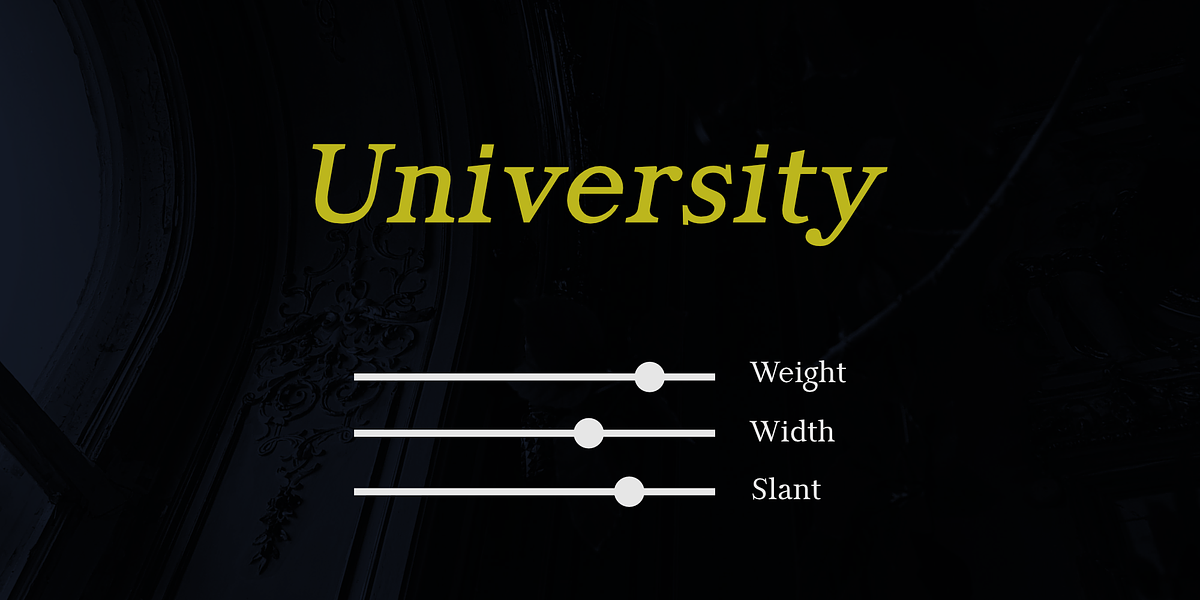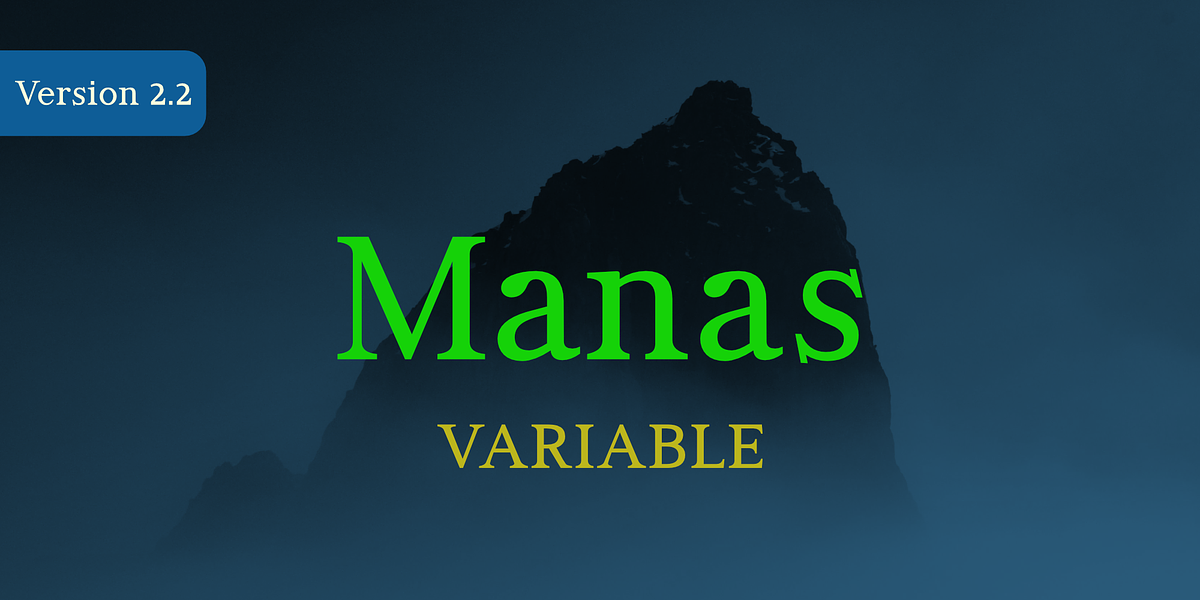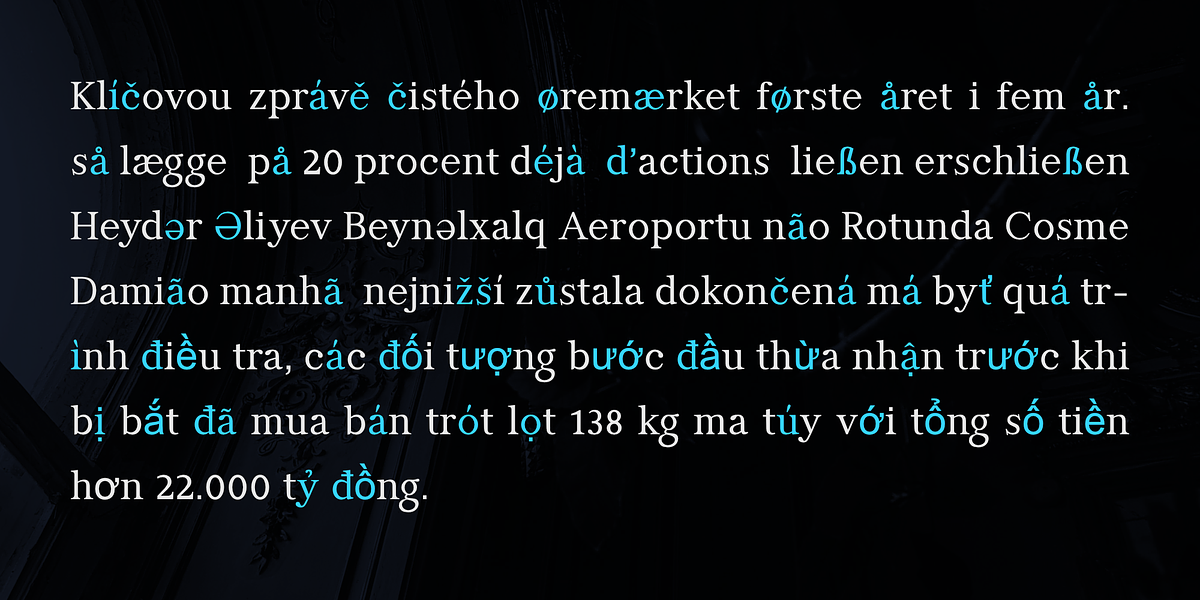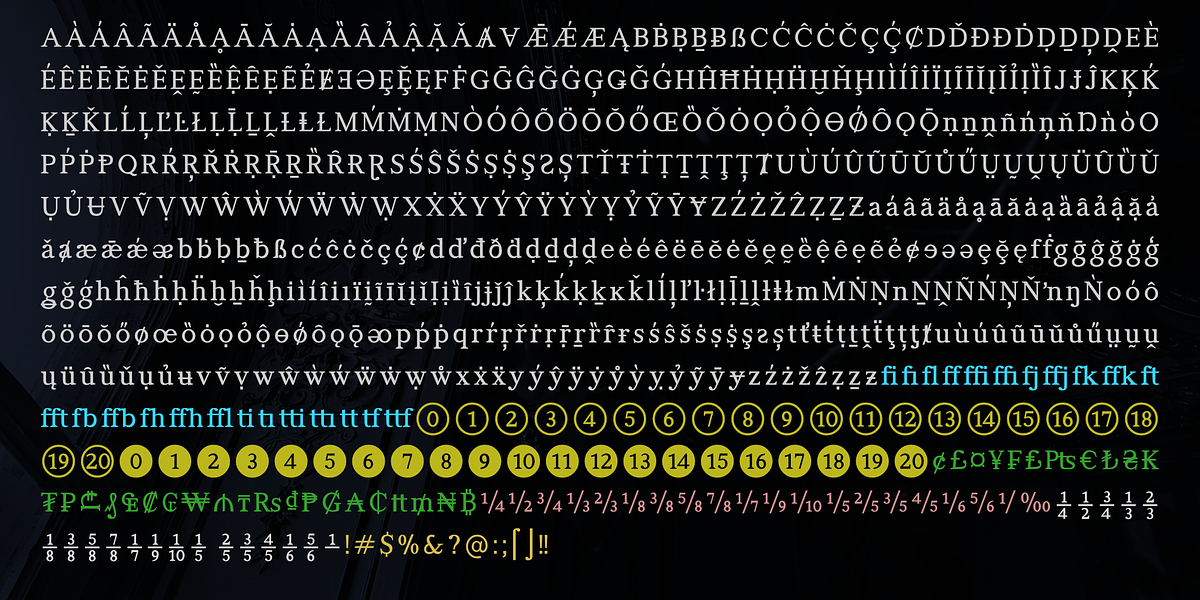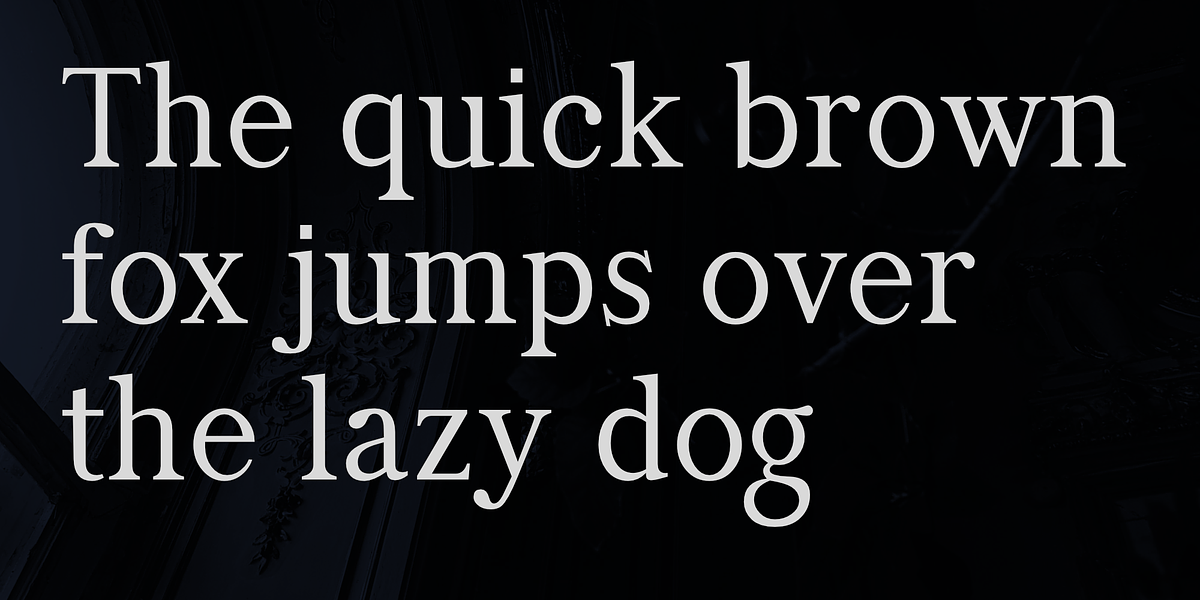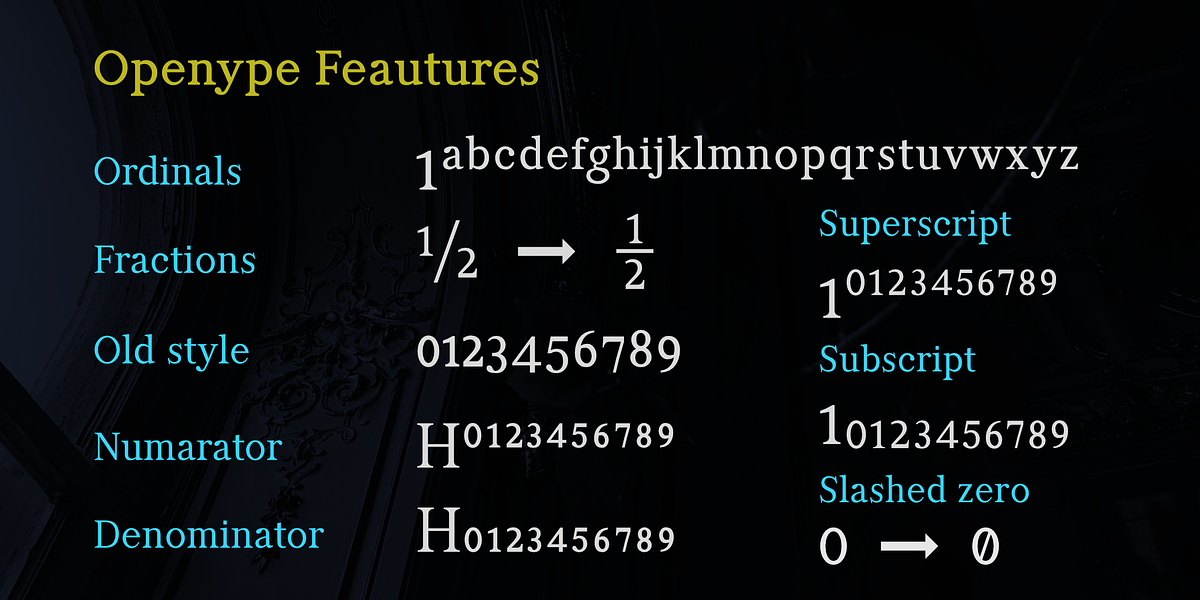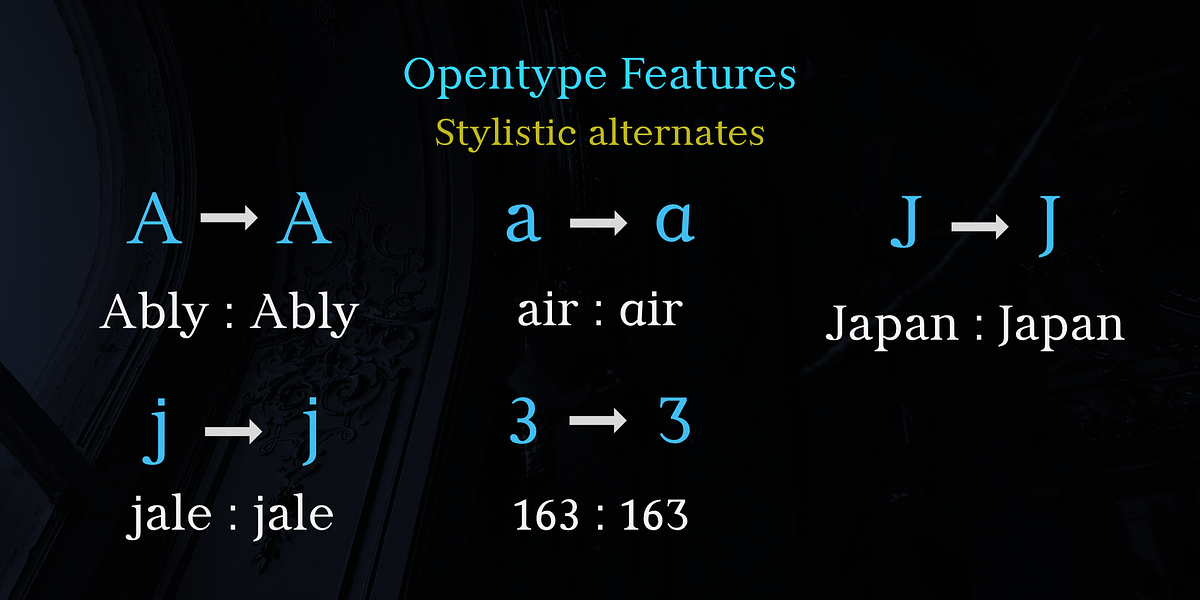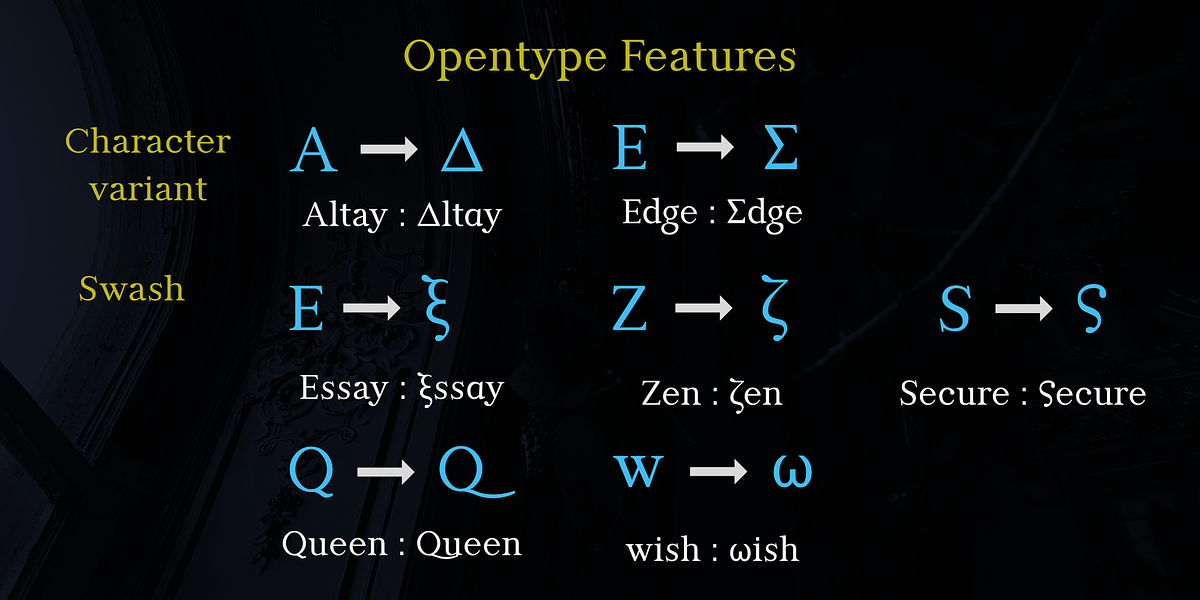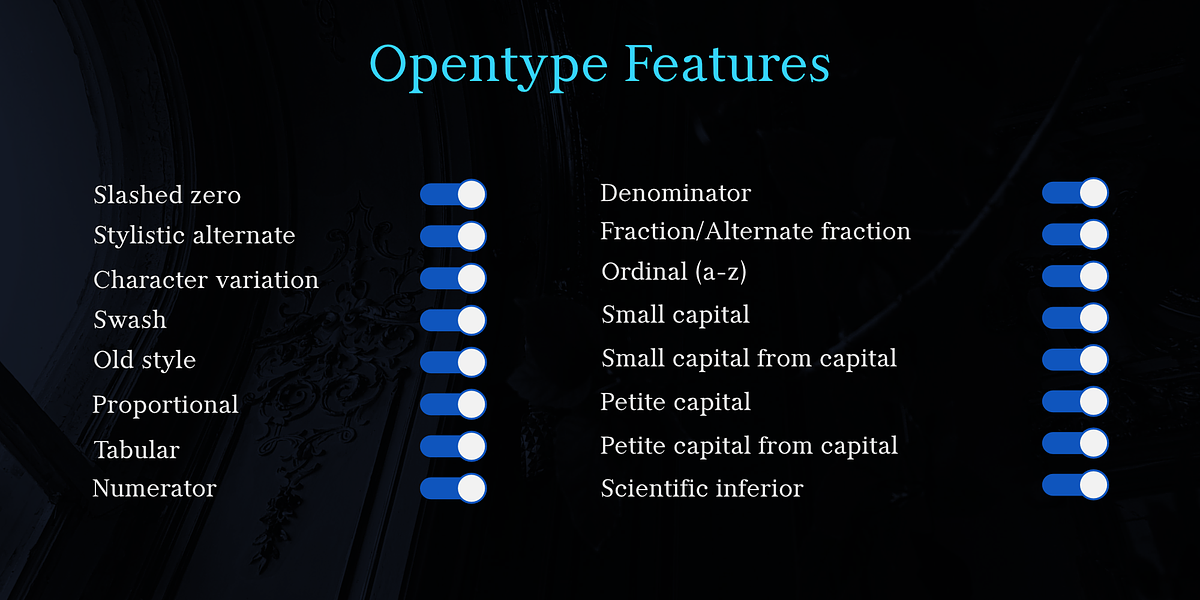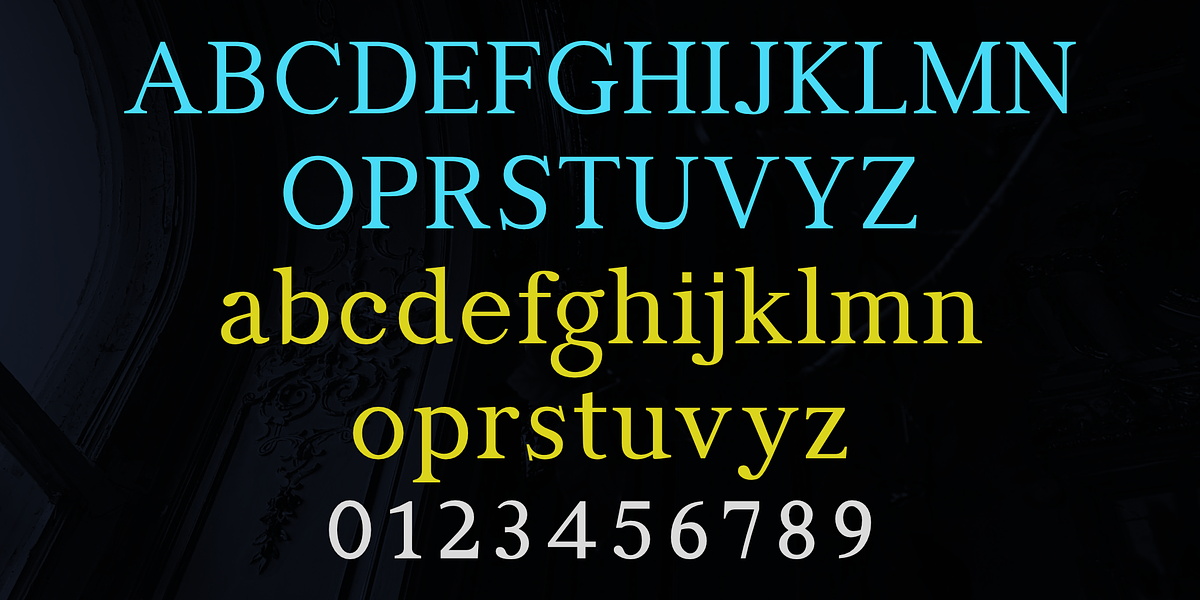
Manas VF
Manas Variable is a multilingual serif font designed with old style characteristics. Its key feature is its variable nature, allowing for customization across weight (300-800), width (from UltraCompressed to ExtraExpanded), and slant (0-12 degrees). This results in millions of possible variations. The font includes various OpenType features such as slashed zero, stylistic alternates, swashes, and support for small capitals and petite capitals. Manas Variable is suitable for a wide range of applications, from print design and branding to digital environments and publishing.